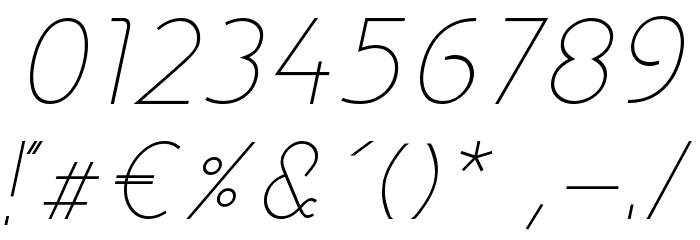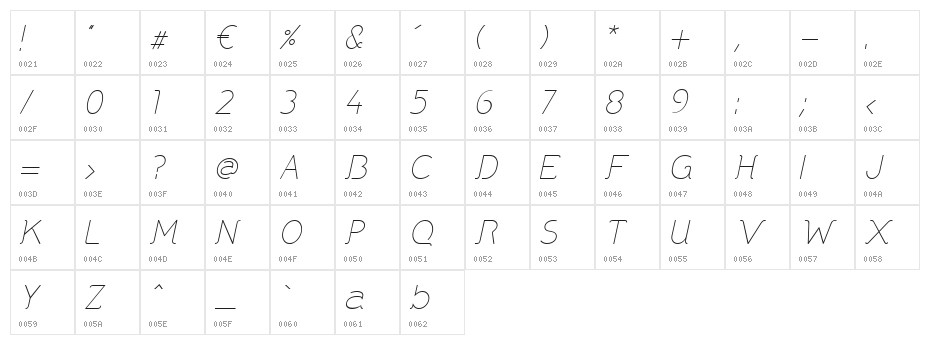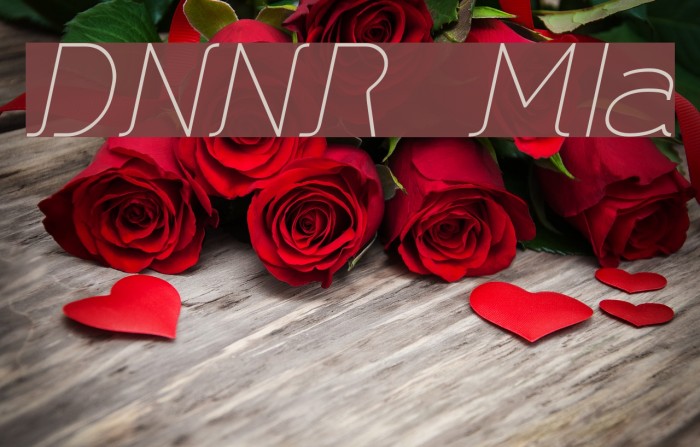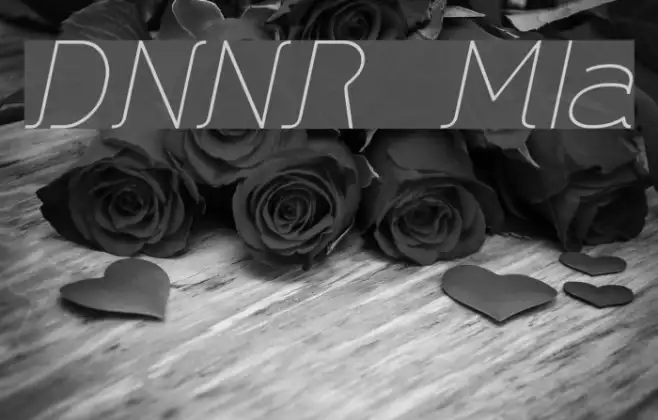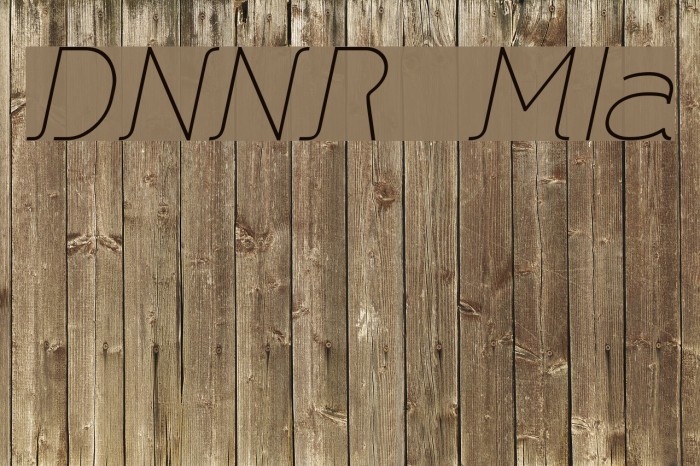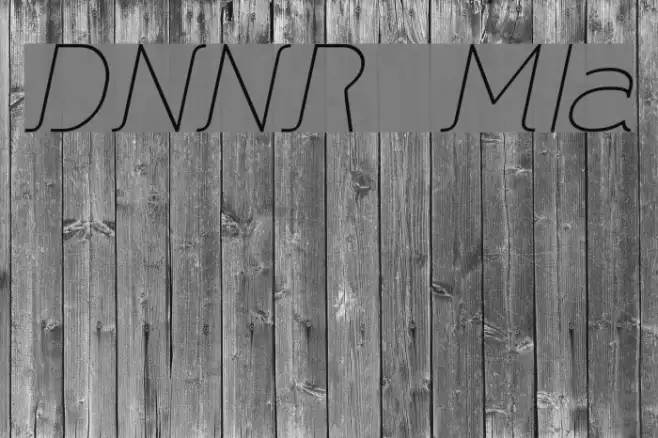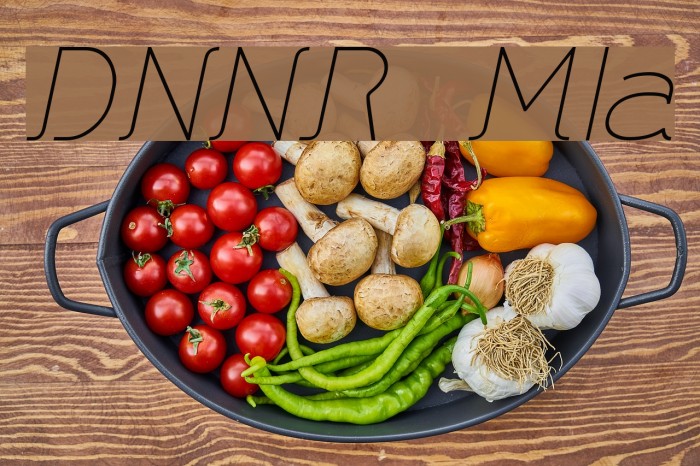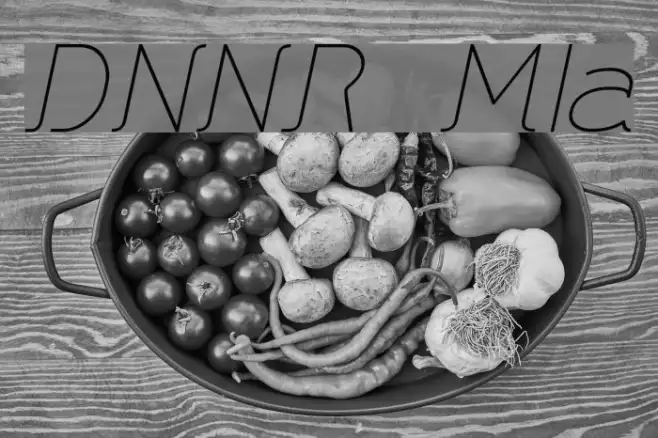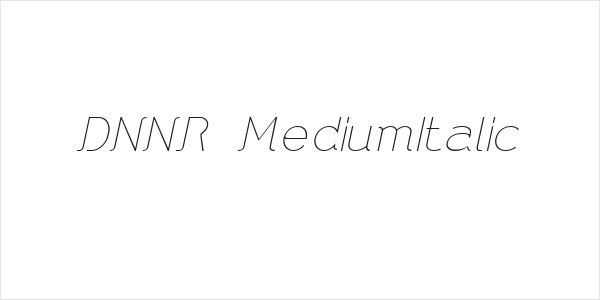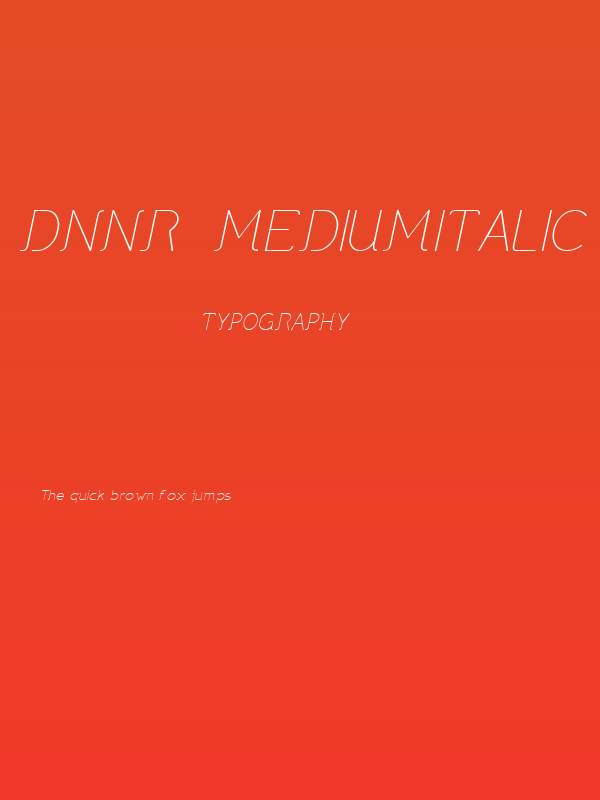
DNNR MediumItalic Font
DNNR MediumItalic Description
This font features a sleek and modern design with a distinct italic slant, giving it a dynamic and forward-moving appearance. The characters are crafted with smooth, continuous lines that create a sense of fluidity and elegance. The uppercase letters are tall and slightly narrow, while the lowercase letters maintain a consistent height, enhancing readability. The numerals are well-proportioned and align perfectly with the overall style, ensuring clarity in numerical data presentation. Special characters are designed with the same attention to detail, making them easily recognizable and aesthetically pleasing.